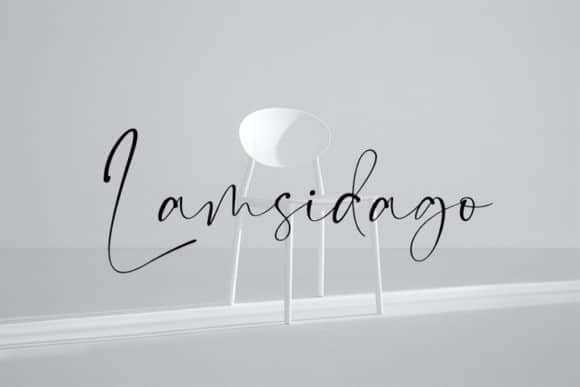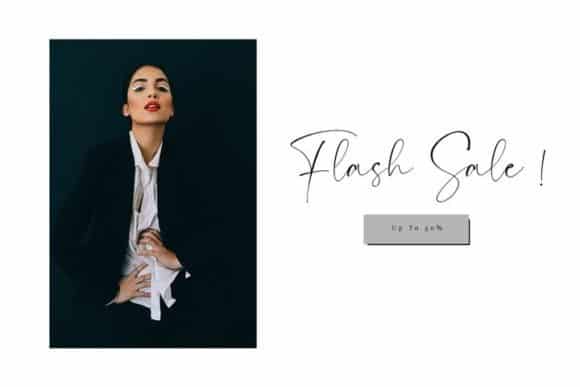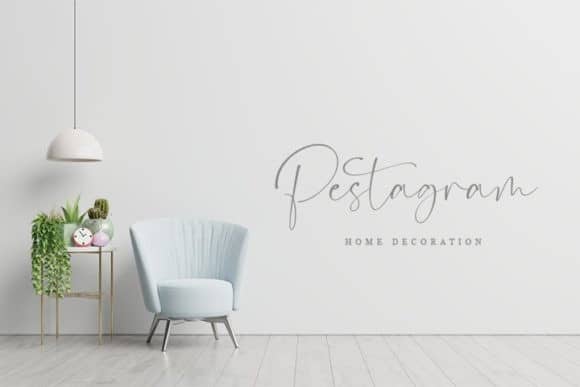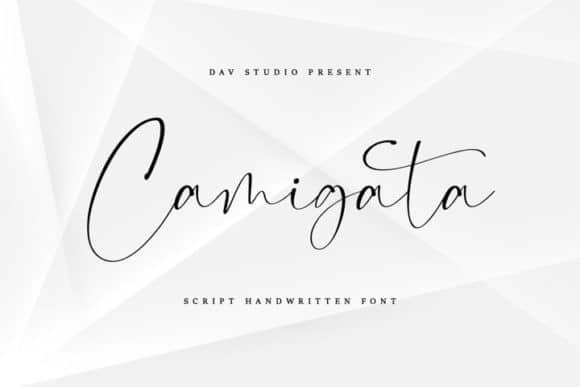
Camigata Handwritten Font
Camigata Handwritten Font is a delicate handwritten font with multilingual support. Font includes a full set of gorgeous uppercase and lowercase letters, numbers, a large selection of punctuation marks & multilingual support. Made from font designer named Dav studio. This font is a delicate, lovely and cute handwritten font. It has beautiful and well balanced characters and it matches a wide pool of designs. Add it to your most creative ideas and notice how it makes them come alive!